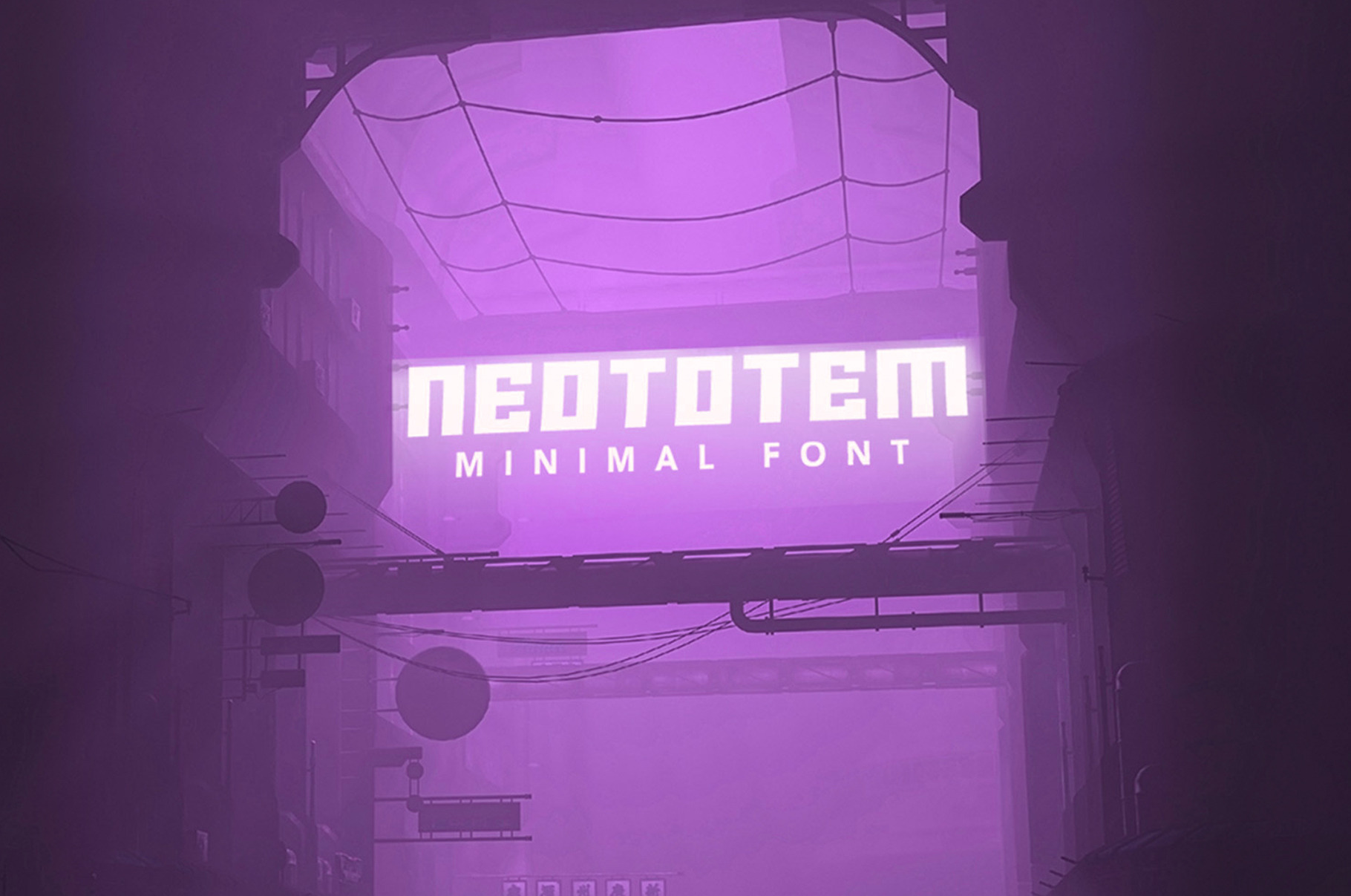
Neototem Font
Neototem is an all - caps font inspired from the futuristic cyberpunk setting.
Perfect for impactful branding, packaging, headlines, posters, presentations, short texts.